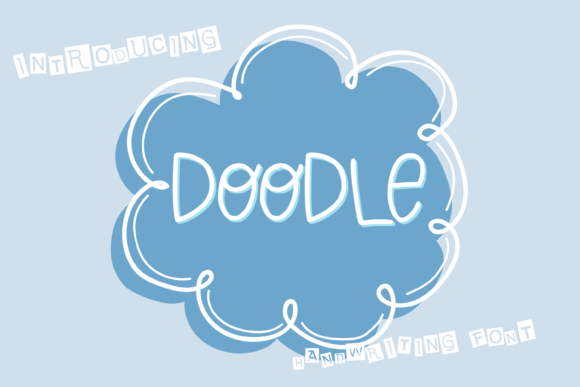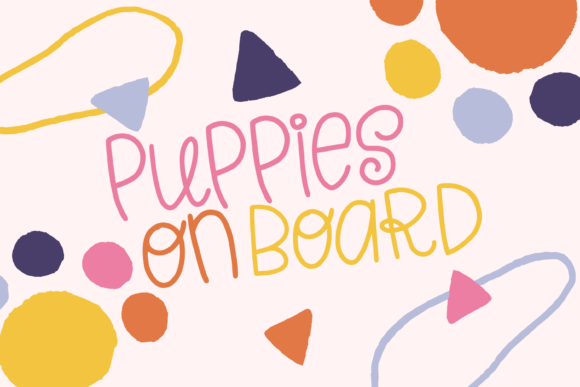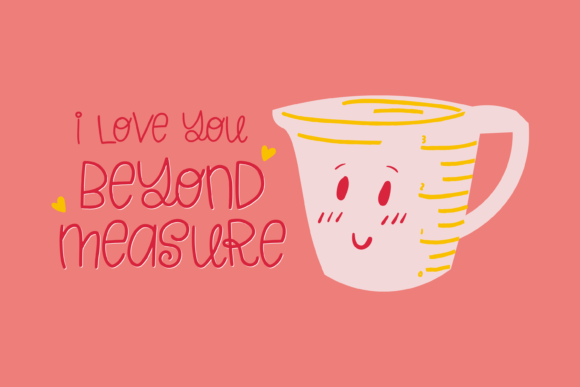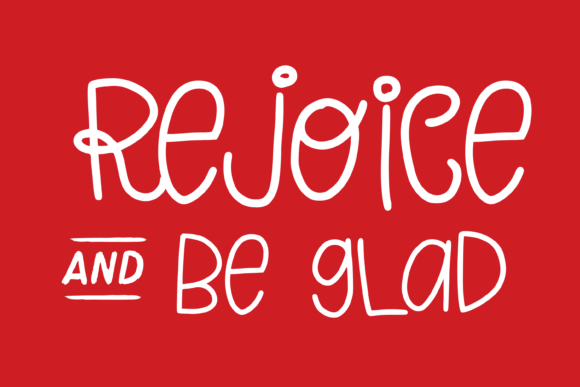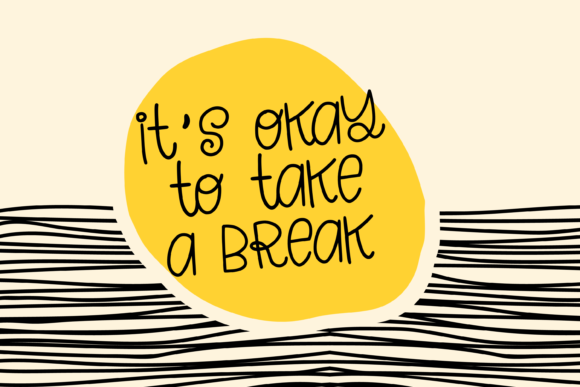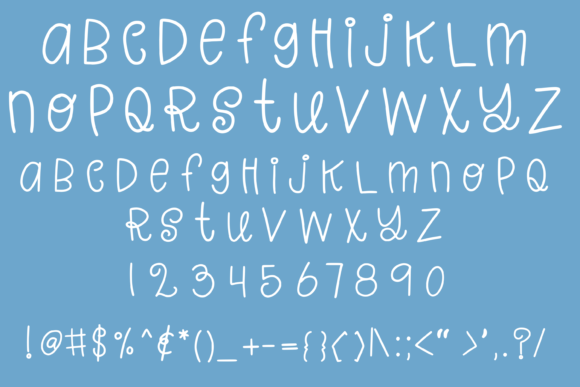
Doodle Font
About Doodle Font
Doodle is a cute handwritten font that is perfect for kids’ projects. Your designs have never looked this sweet and friendly before!